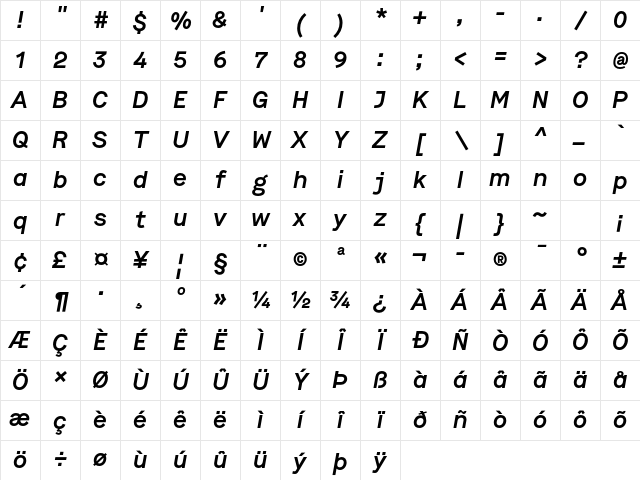
Complete Maison SemiBold Italic glyph index. Displaying only characters natively supported by Maison SemiBold Italic font.
Maison SemiBold is a composed and adaptable typeface that performs quietly and consistently across a wide range of design contexts. The slanted form adds forward momentum and visual energy. Its bold stroke weight gives it real presence on the page.
Pro Tip: Use Maison SemiBold for emphasis, pull quotes, and subheadings where its slanted energy can add rhythm to the layout.